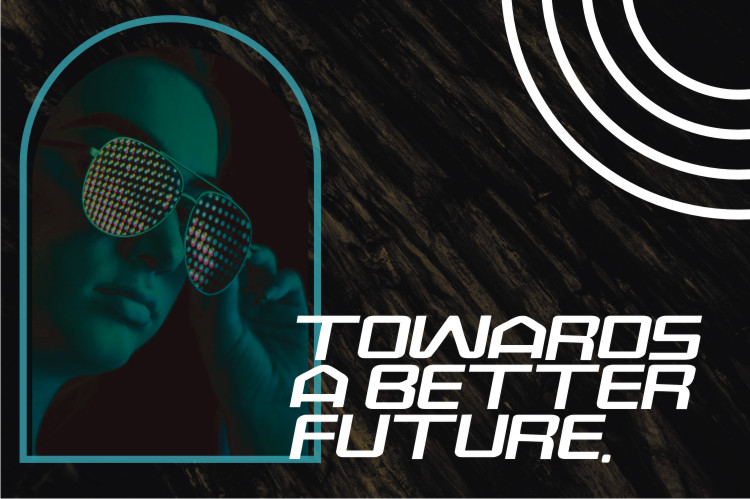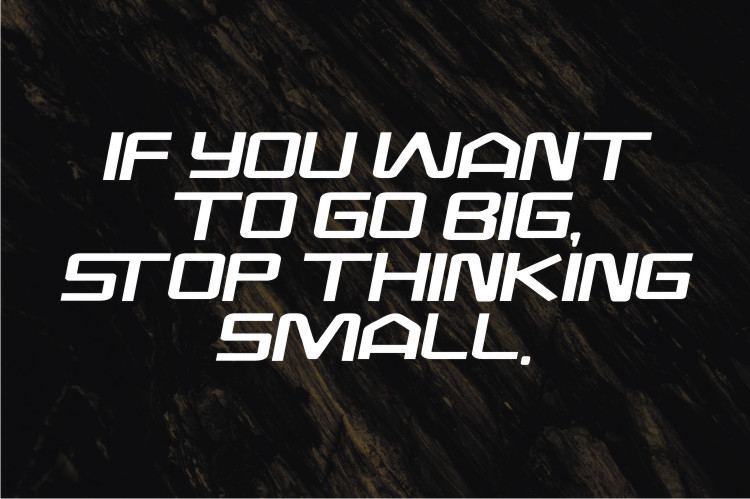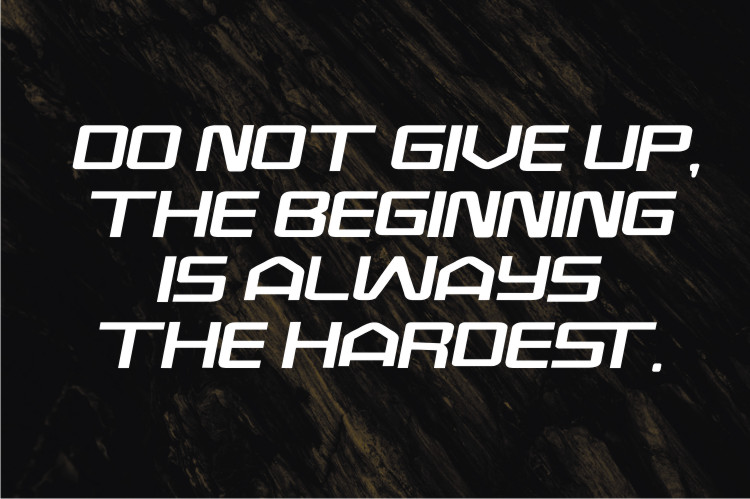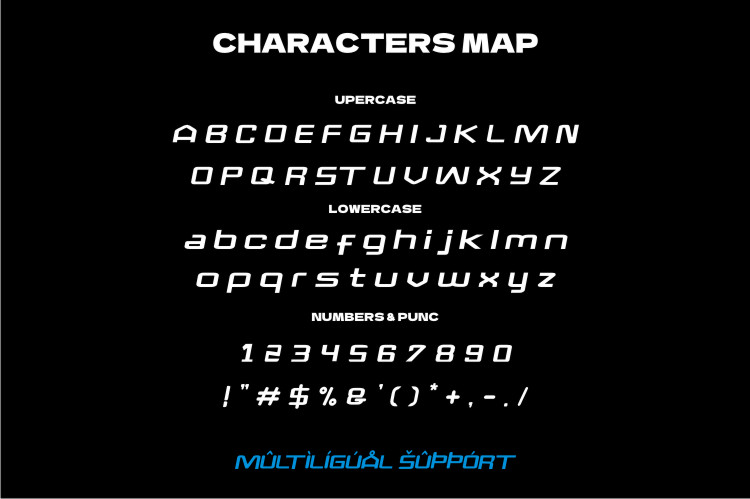
Mexares Display Font
This is a clean and modern looking display font. Add this techno styled font to your web designs, logos or pretty much anything that requires a smart, cool touch.